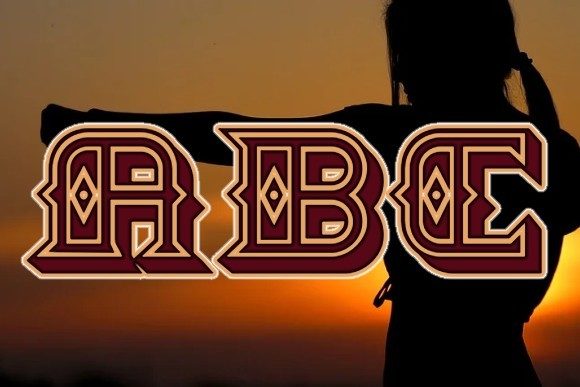
Unleash Your Creativity with Combat Font: A Bold and Unique Display Font
Are you tired of using the same old fonts for your designs? Do you want to add a touch of boldness and uniqueness to your work? Look no further than Combat Font, a stunning display font that is sure to inspire your creativity. In this article, we’ll explore the features and benefits of Combat Font, and show you how to make the most of its endless possibilities.
What is Combat Font?
Combat Font is a bold and uniquely designed display font that is perfect for designers, crafters, and anyone looking to add a touch of edginess to their work. With its strong and rugged appearance, Combat Font is ideal for creating eye-catching headlines, titles, and graphics that demand attention.
Key Features of Combat Font
- Bold and Unique Design: Combat Font features a bold and uniquely designed style that sets it apart from other fonts.
- Display Font: This font is specifically designed as a display font, making it perfect for headlines, titles, and graphics.
- High-Quality Vectors: Combat Font is made up of high-quality vectors, ensuring that your designs look sharp and professional.
Benefits of Using Combat Font
So why choose Combat Font for your designs? Here are just a few benefits of using this amazing font:
- Adds a Touch of Edginess: Combat Font adds a touch of edginess and boldness to your designs, making them stand out from the crowd.
- Increases Readability: The bold and clear design of Combat Font makes it easy to read, even at small sizes.
- Versatile: This font can be used for a wide range of design projects, from posters and flyers to logos and branding.
- Time-Saving: With Combat Font, you can create professional-looking designs in no time, saving you time and effort.
Endless Possibilities with Combat Font
So what can you create with Combat Font? The possibilities are endless! Here are a few ideas to get you started:
- Posters and Flyers: Use Combat Font to create eye-catching posters and flyers that grab attention.
- Logos and Branding: This font is perfect for creating bold and memorable logos and branding.
- Social Media Graphics: Use Combat Font to create stunning social media graphics that stand out from the crowd.
- Packaging Design: Add a touch of boldness to your packaging design with Combat Font.
Tips and Tricks for Using Combat Font
Here are a few tips and tricks for getting the most out of Combat Font:
- Experiment with Colors: Try out different colors and color combinations to add depth and interest to your designs.
- Play with Sizes: Experiment with different font sizes to create visual hierarchy and emphasis.
- Combine with Other Fonts: Try pairing Combat Font with other fonts to create a unique and interesting look.